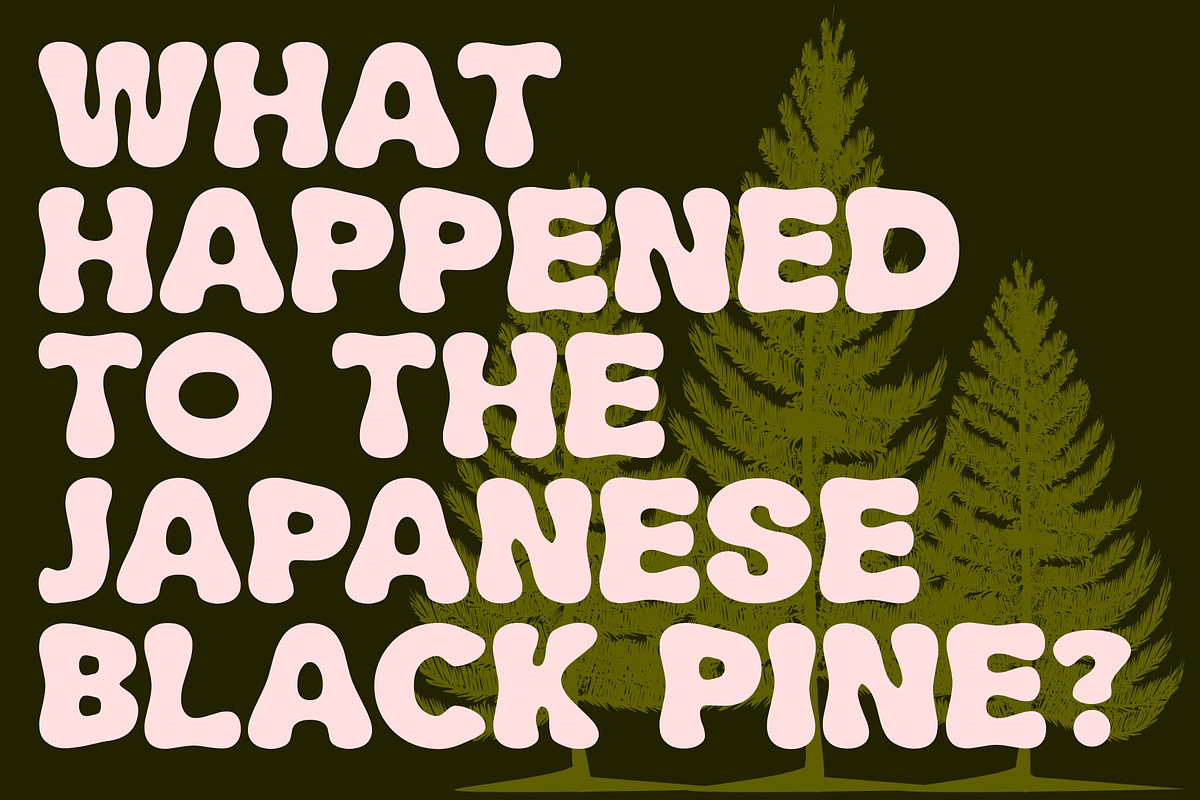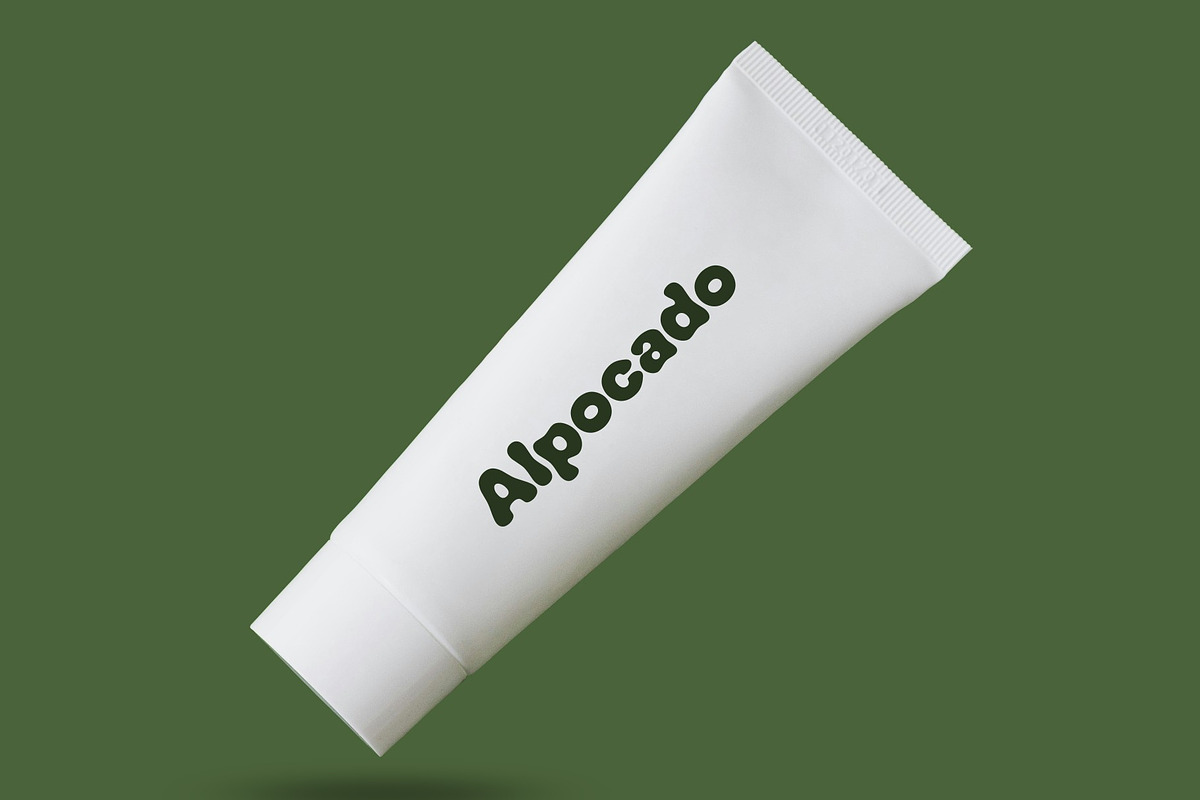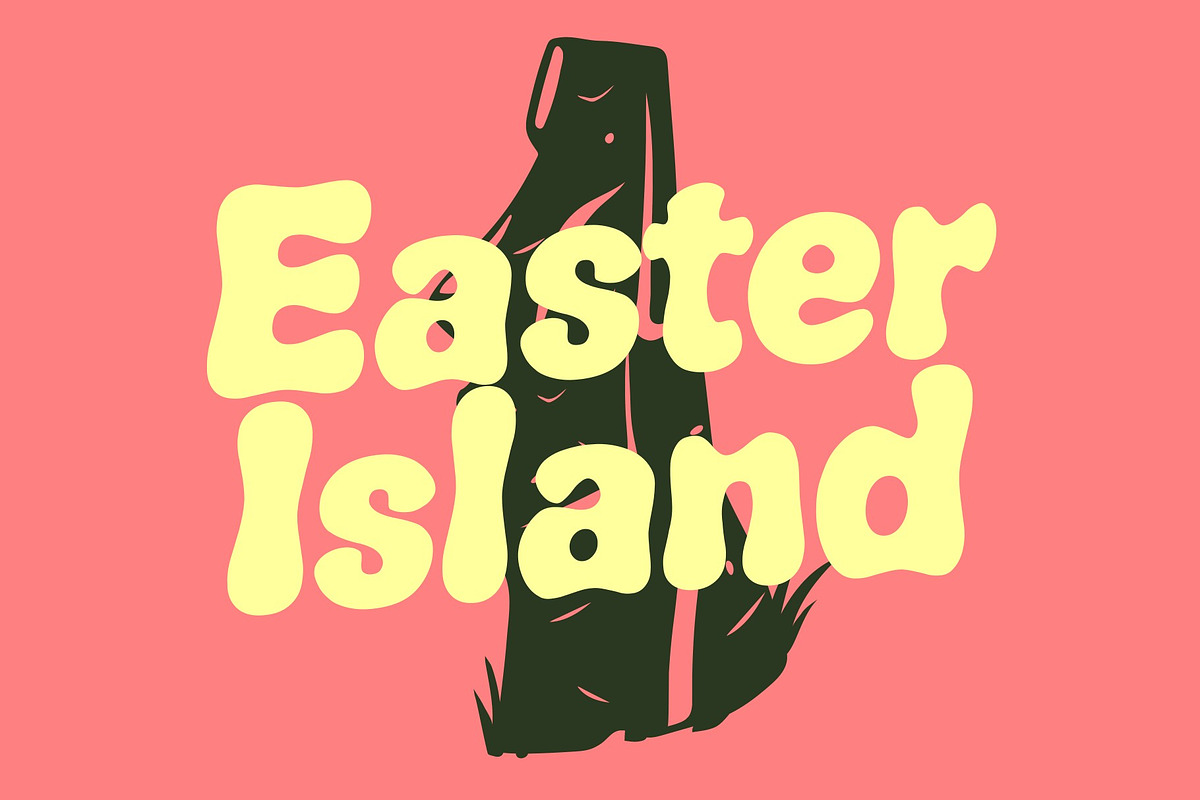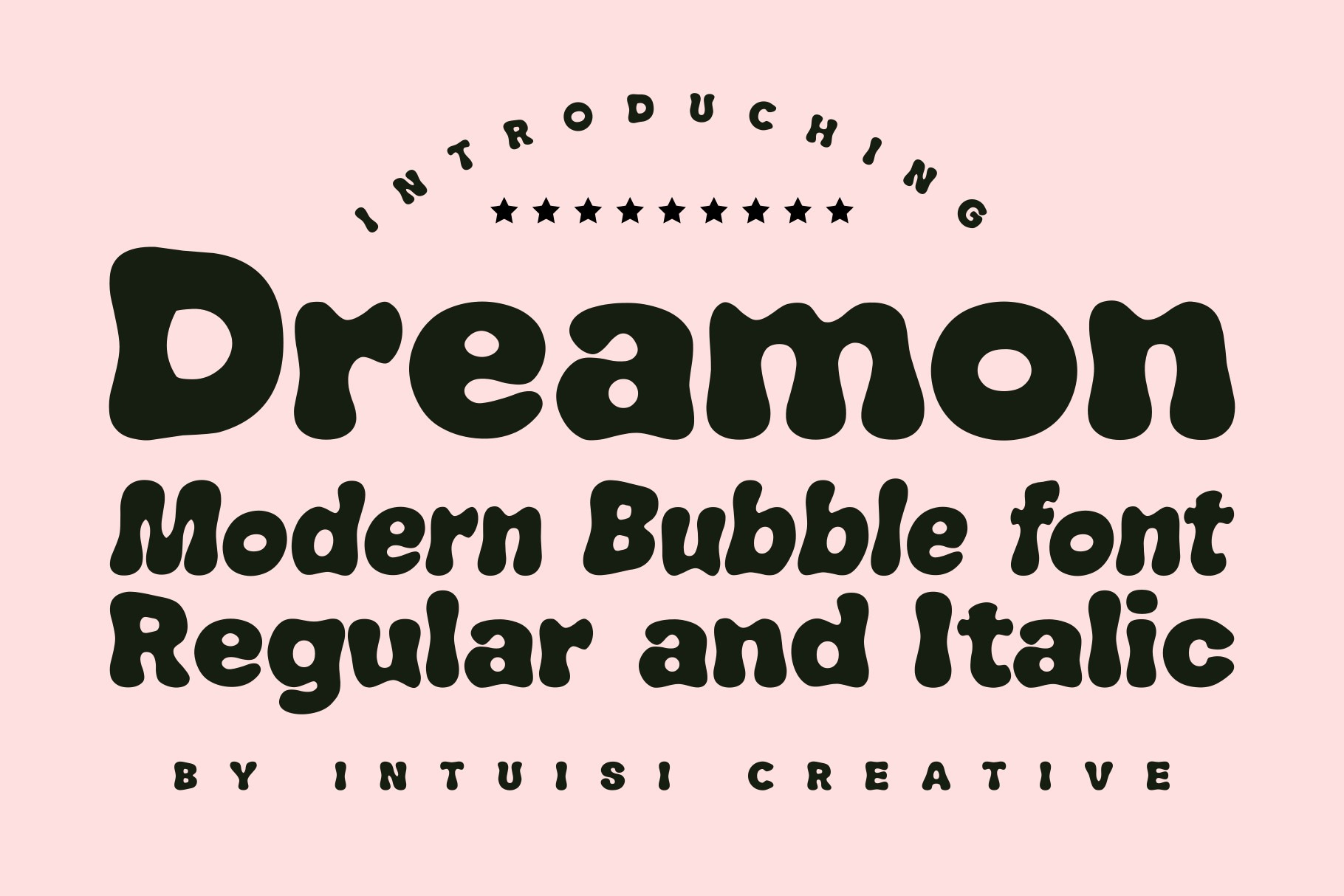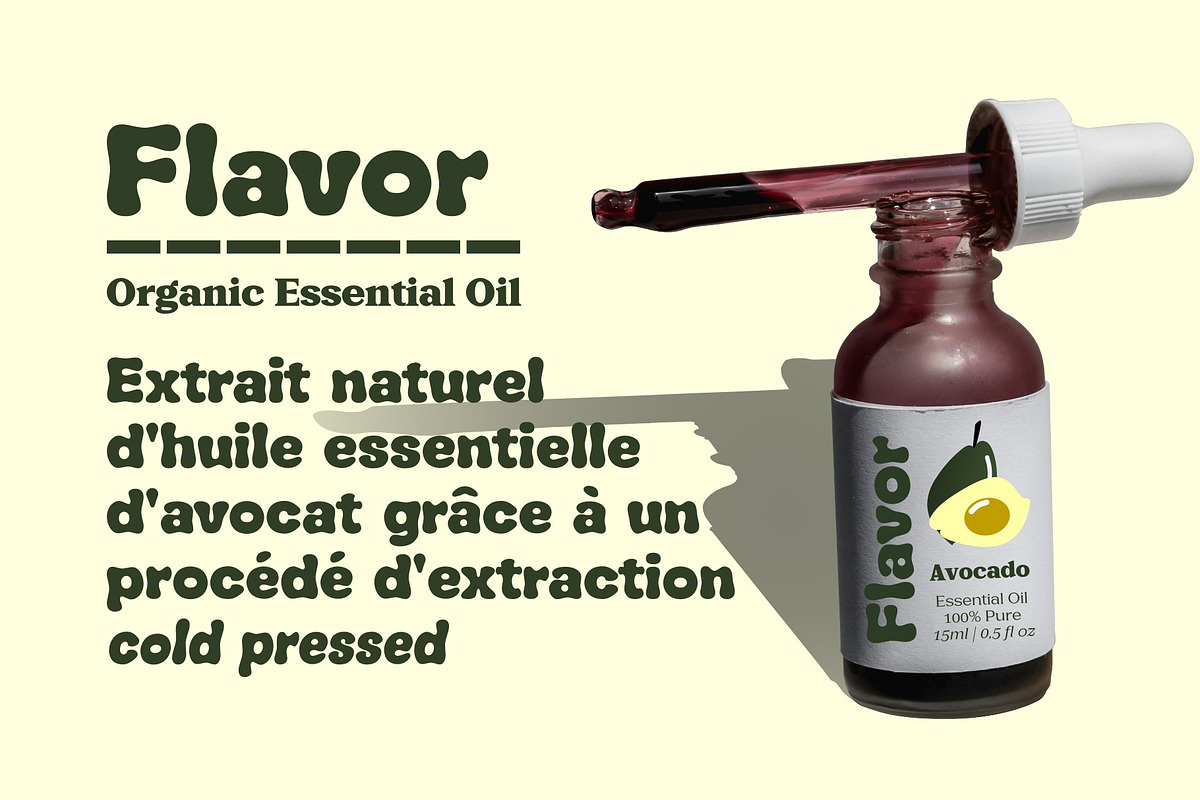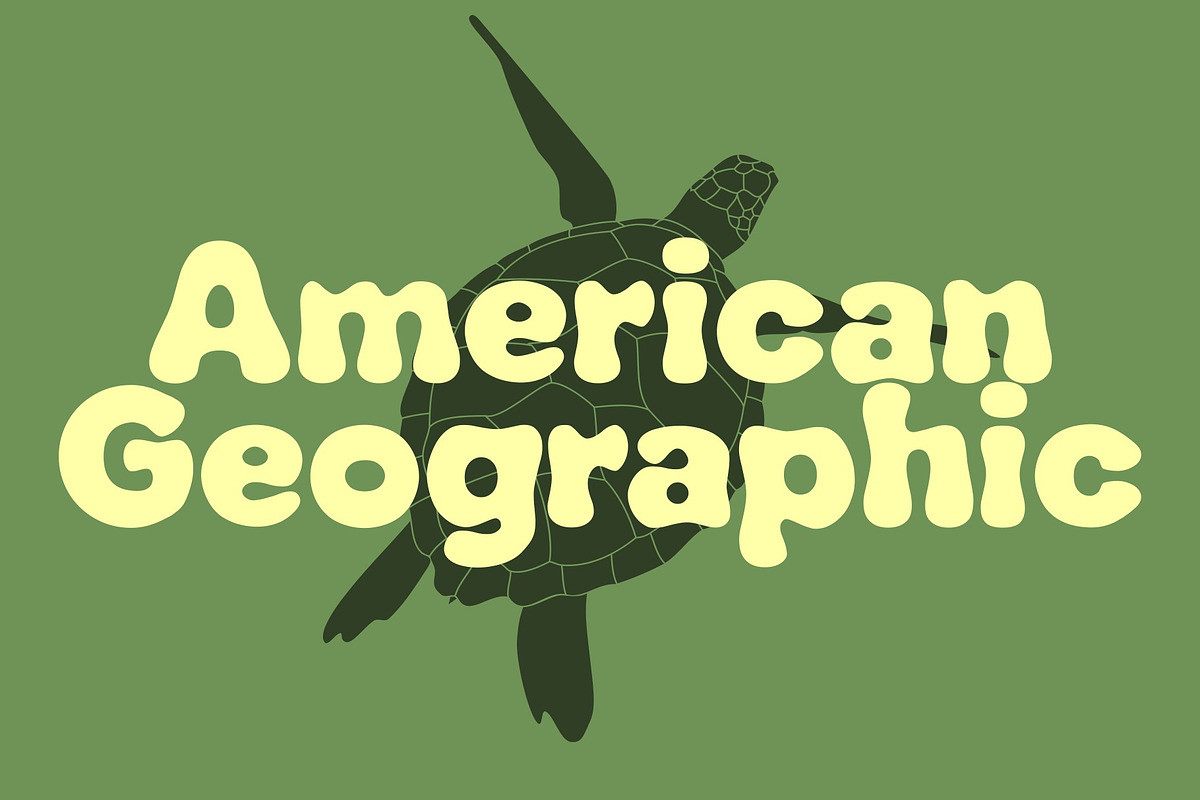
Dreamon | Professional Bubble Font
Looking for bold and unique typography to make your project stand out? Visit Dreamon! Professional bubble style font and Follows the latest trends | allows you to express yourself without sacrificing legibility or readability. If you're looking for a fun font that makes a statement without distracting from your design | Dreamon can help turn creative ideas into something truly special!